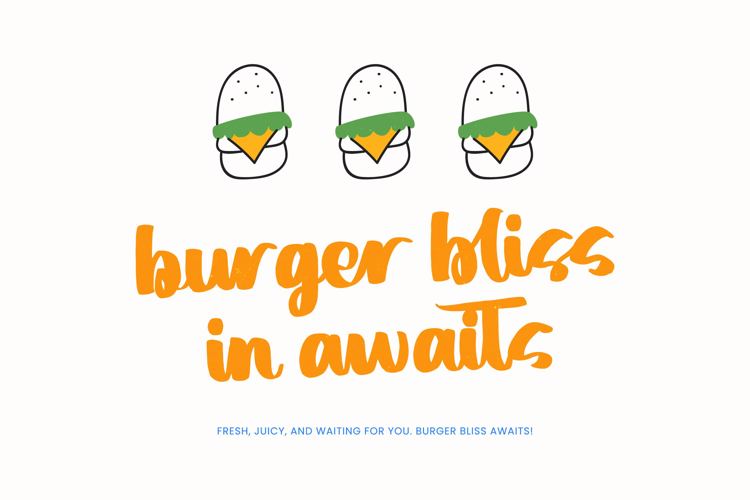
Simple Chating - Bold Brush Font
Inject immediate warmth and personality into your designs with the energetic strokes of Simple Chating - Bold Brush Font. This typeface captures the authentic spirit of expressive handwriting, delivering a highly visible and dynamically flowing script that is impossible to ignore. Designed with substantial weight, it ensures maximum impact and legibility even at large scales, perfect for capturing an audience with an immediate, friendly connection and establishing a vibrant brand identity.
Unlock unparalleled creative freedom with its extensive typographic resources. Simple Chating - Bold Brush Font features an impressive library of over 599 glyphs, including 188 unique ligatures, 73 alternates, and expressive swashes. This wealth of OpenType features allows designers to effortlessly create custom, highly varied headlines and wordmarks that maintain a natural, non-repeating flow, ensuring your work feels genuinely handwritten and distinctive.
Elevate your branding with a truly global voice. Simple Chating - Bold Brush Font is perfect for projects requiring a playful yet professional touch, such as children's books, casual product packaging, merchandise design, and dynamic social media content. It excels in delivering promotional messages with high emotional resonance. With its extensive multilingual support, Simple Chating - Bold Brush Font adapts seamlessly across global markets, making it incredibly versatile for international projects.
Secure a typeface that guarantees design differentiation in crowded digital spaces. This bold brush font delivers the necessary impact for effective visual storytelling, making logos and advertisements instantly memorable. Invest in Simple Chating - Bold Brush Font today to leverage its unique character and comprehensive functionality, ensuring every project carries a powerful, unmissable aesthetic signature required for high-impact commercial results.